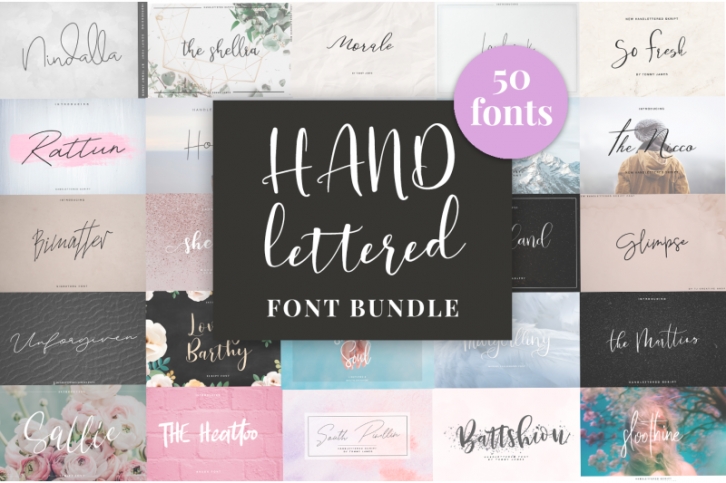
Tommy James presents the Handlettered Font Bundle 50!
All fonts are ideal for branding, headlines, signatures, logos, blogs, wedding invitations, t-shirts, letterheads, Souvenirs, signage, labels, news, posters, badges, etc.